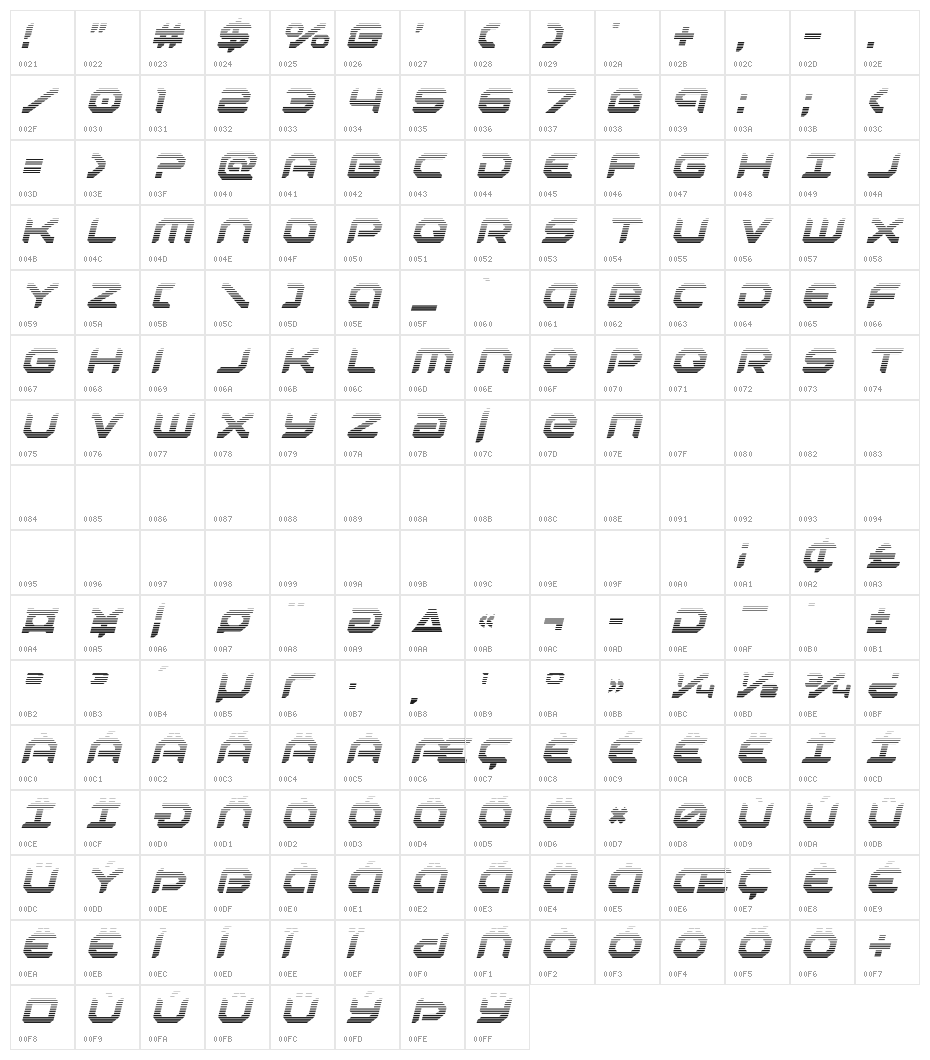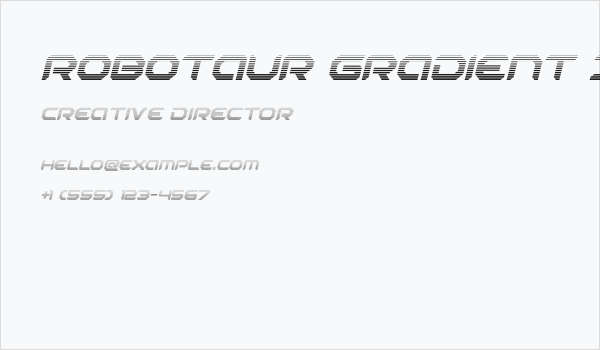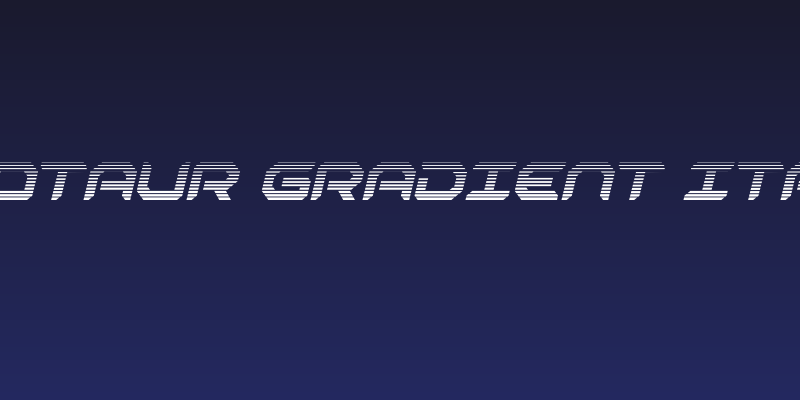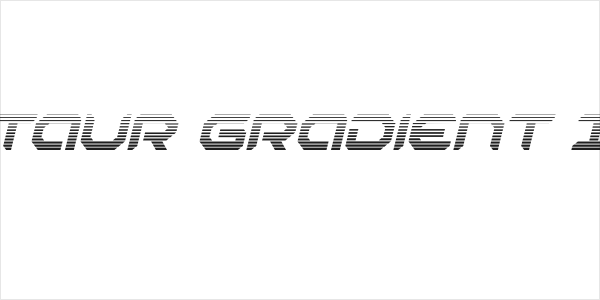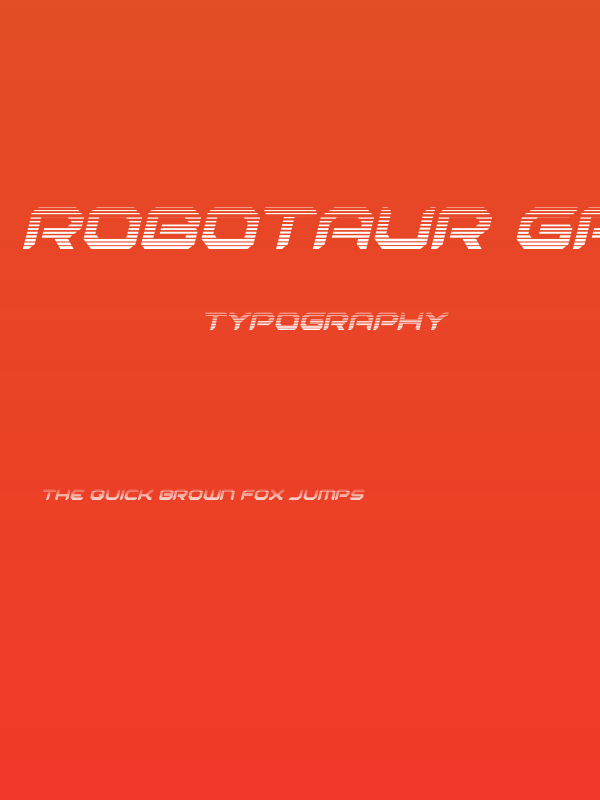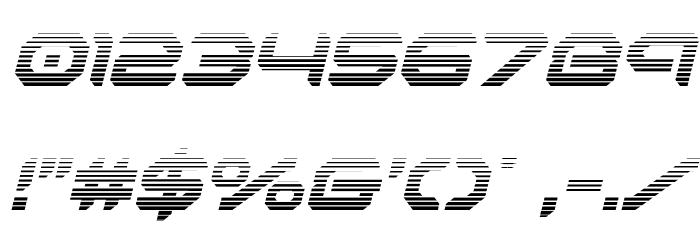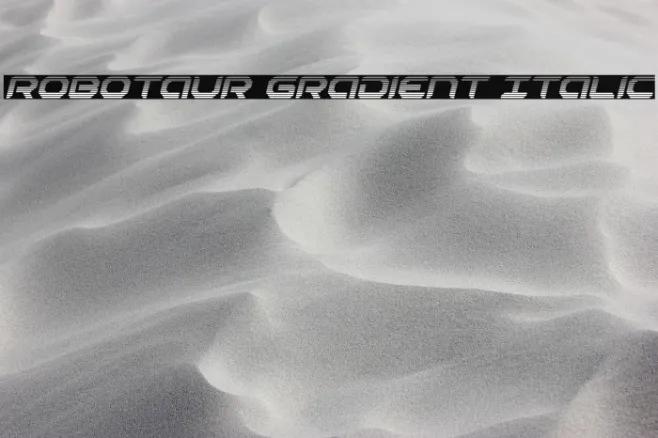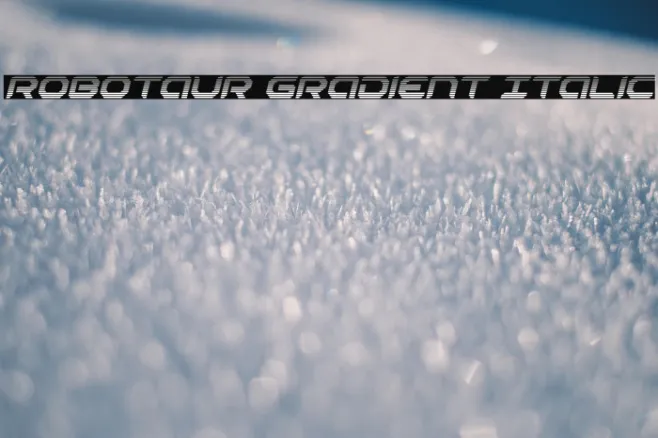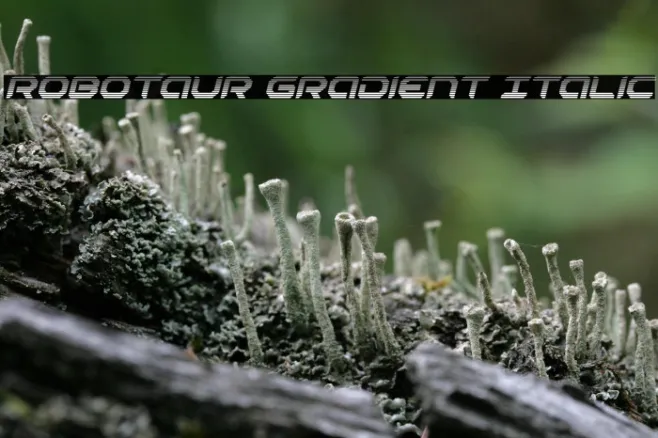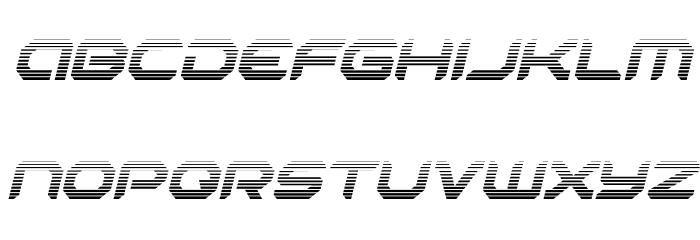
Robotaur Gradient Italic Font
Robotaur Gradient Italic Description
This font features a futuristic, digital aesthetic with a distinctive gradient effect that gives the impression of movement or speed. The characters are italicized, adding a dynamic slant that enhances its modern appeal. Each letter is composed of parallel lines that create a striped pattern, contributing to its unique and eye-catching design. The font maintains a consistent width across all characters, ensuring uniformity. Its bold and striking appearance makes it ideal for projects that require a strong visual impact.
| Proposed Projects | Ideal for tech-related branding, sci-fi posters, video game titles, and digital art projects. |